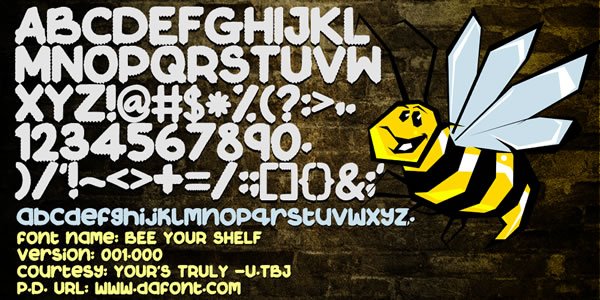
Discover the Buzzworthy Bee Your Shelf Font
Have you ever stared at a blank page, pen in hand, waiting for inspiration to strike? For designers, that moment can be a challenge. But what if that spark of creativity came from a unique typeface that could bring your ideas to life? Enter the Bee Your Shelf Font, a versatile and charming font that’s perfect for a wide range of projects.
This delightful font can be used to add a personal touch to mugs, create eye-catching headings, design logos, craft invitations, or even publish a newspaper. Its adaptability makes it a valuable asset for designers looking to add a touch of whimsy to their work. Whether you’re a seasoned pro or just starting out, the Bee Your Shelf Font is sure to inspire your next creative project.
- Unique Characteristics: The font features a unique, hand-drawn design with subtle texture and imperfections, giving it a warm and inviting feel. The font’s irregularities and nuances make it perfect for creating a distinctive and memorable visual identity.
Bee Your Shelf Font Review
I recently had the chance to work with the “Bee Your Shelf Font” and I must say, it’s an interesting addition to the world of fonts.
- The font’s playful and quirky nature makes it perfect for creative projects and brand identities that want to stand out.
- The Bee Your Shelf Font has a wide range of weights and styles, which makes it versatile and suitable for various design applications.
- The font’s unique character set and ligatures add a touch of personality to any design, making it a great choice for designers who want to add some whimsy to their work.
- The font’s readability can be a concern, especially at smaller font sizes. Some letters and numbers can be quite complex and might be difficult to decipher.
- The font’s weight and style options can be overwhelming for some designers, making it challenging to choose the right one for their project.
Overall, I think the Bee Your Shelf Font is a great addition to any designer’s toolkit, but it’s essential to use it thoughtfully and in the right context. With a little creativity and caution, this font can add a unique touch to your designs.
Use Bee Your Shelf Font for titles, headings, and other prominent text elements.
Combine with other fonts for a unique and eye-catching design.
Bee Your Shelf Font is ideal for:
Book covers and book-related designs.
Personalized gift tags and cards.
Invitations and party decorations.